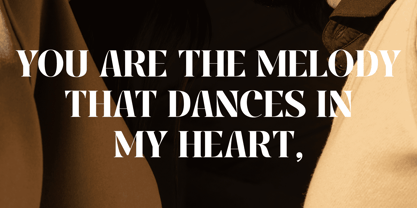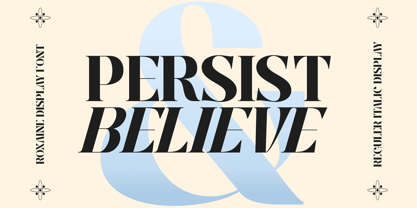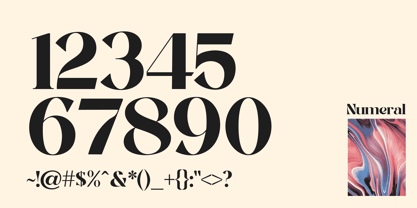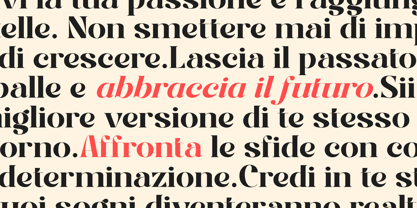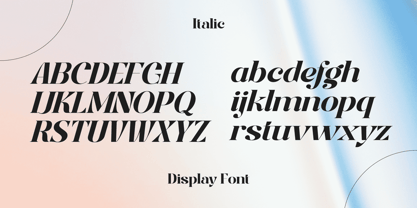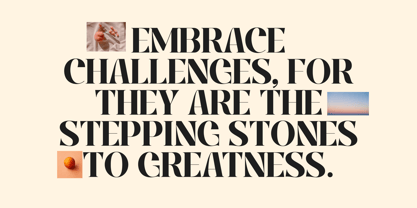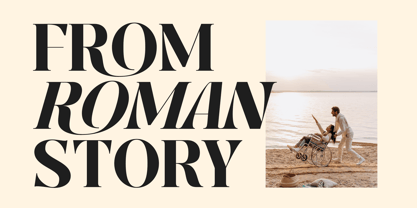
Roxaine Serif
by Mans Greback
The Roxaine Serif Font Family was designed by Måns Grebäck and published by Mans Greback. Roxaine Serif contains 2 styles and family package options. More about this family
Roxaine Serif is a bold yet elegant serif typeface, balancing a sense of classical tradition with contemporary sharpness. Its high contrast strokes and distinctive triangular serifs give it a sophisticated presence, while the flowing curves keep it approachable and full of personality. In its Regular style, Roxaine Serif exudes stability and authority, perfect for refined text settings. The Italic version adds an extra dimension of movement and style, leaning gracefully forward with a dynamic flair. The design draws inspiration from timeless editorial lettering, where thick and thin strokes interplay to create visual rhythm. Its expressive forms make it equally suited for grand headlines or refined branding, always commanding attention without shouting. The font is built with advanced functionality and guaranteed top-notch quality, containing stylistic and contextual alternates, ligatures and more automatic and manual features; all to give you full control and customizability. It has extensive lingual support, covering all Latin-based languages, from North Europa to South Africa, from America to South-East Asia. It contains all characters and symbols you'll ever need, including all punctuation and numbers. Created by Mans Greback, whose lettering expertise blends artistic sensitivity with technical precision, ensuring each curve and detail has purpose and beauty.
Designers: Måns Grebäck
Foundry: Mans Greback